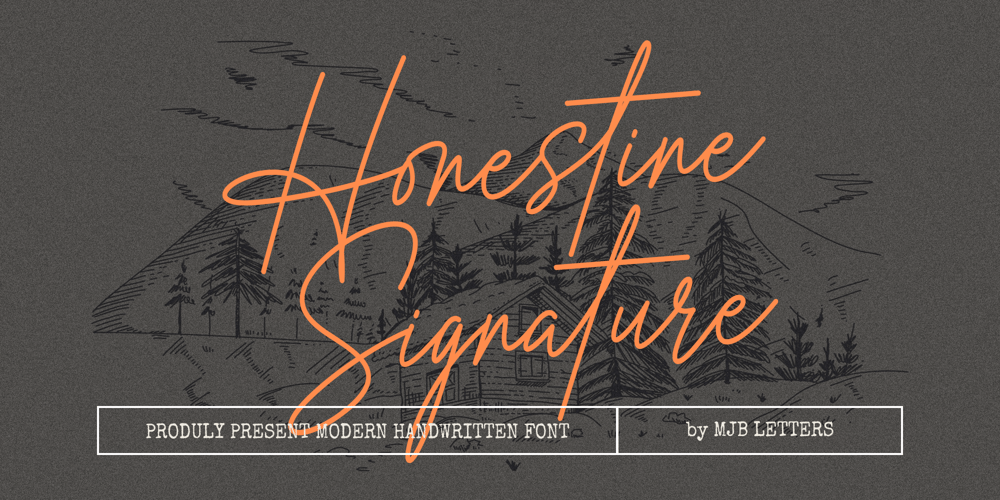
Honestine Signature Font Family was designed by Muhammad Mujibulloh and published by MJB Letters. Honestine Signature contains 1 styles and family package options. Honestine Signature is a refined handwritten script font that combines elegance with a contemporary monoline design. Its clean, consistent strokes make it versatile and sophisticated, while the added features of ligatures and underline swashes bring an extra flair of uniqueness to every character. Perfect for upscale branding, signature logos, wedding invitations, and personalized stationery, Honestine Signature shines in projects requiring a graceful, polished touch. This font is also ideal for social media graphics, product packaging, and fashion-related designs, enhancing any layout with a sense of modern luxury and style.